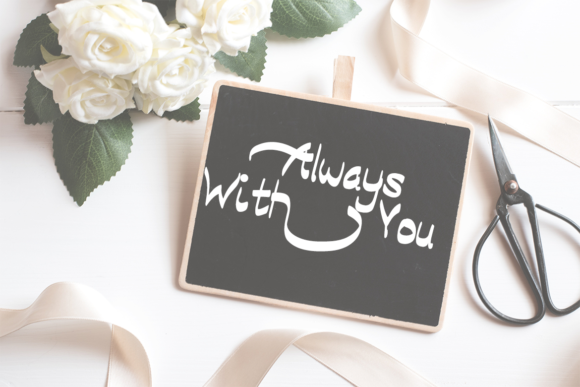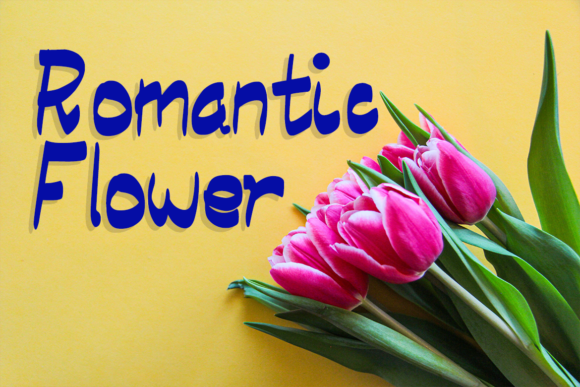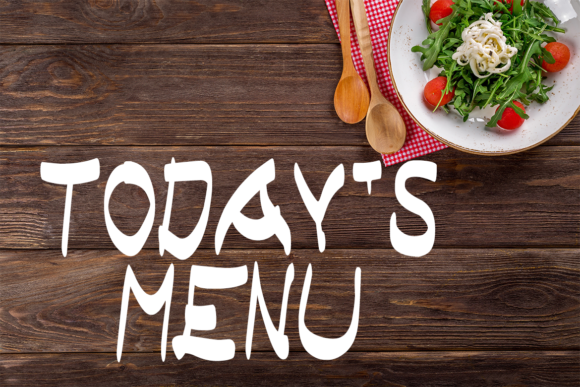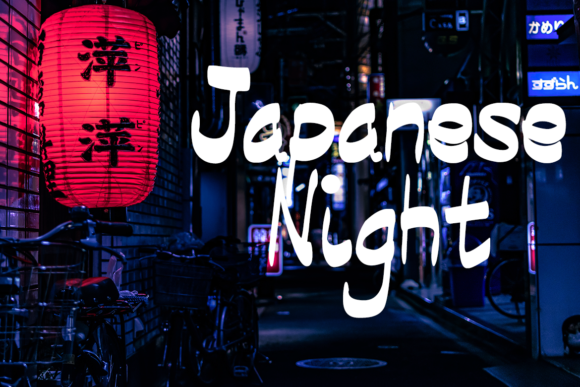
The Aisyah Font: A Bold Script with Endless Possibilities
I’ll never forget the moment I stumbled upon the Aisyah font. I was working on a project for a client who wanted a bold, yet down-to-earth script font that would make their brand stand out. As I scrolled through my font library, I found myself stuck. That’s when a fellow designer recommended Aisyah, and it quickly became my go-to font for that project. Its casual charm and readability won me over, and I’ve been hooked ever since.
An Honest Review of Aisyah Font
What I Love About Aisyah ✨
- ✅ Unique yet Readable: Aisyah strikes the perfect balance between being bold and easy to read. Its handcrafted feel makes it stand out from more generic script fonts.
- ✅ Versatile: Whether you’re working on a branding project, a craft blog, or a creative hobby, Aisyah adapts beautifully to different contexts.
- ✅ OpenType Features: Aisyah comes with a range of OpenType features, including stylistic alternates and glyphs, which allow for endless customization.
- ⚠️ Limited Use in Small Sizes: While Aisyah is generally readable, it can get a bit tricky to read in very small sizes (below 10pt). It’s best used in headlines, titles, or body text where a bit more size is possible.
- ⚠️ Kerning Issues on Some Platforms: Some users have reported kerning issues when using Aisyah on certain platforms, like Microsoft Word. However, these can often be adjusted manually.
The Backstory Behind Aisyah Font
Aisyah was designed with the intention of creating a bold yet down-to-earth script font. The designer aimed to craft a font that felt both personal and professional, suitable for a wide range of creative projects. While the exact details of the design process are scarce, it’s clear that Aisyah was made with love and a deep understanding of typography.
Q: What makes Aisyah font unique?
A: Aisyah’s uniqueness lies in its bold yet readable design, making it perfect for both headlines and body text. Its handcrafted feel sets it apart from more generic fonts.
Q: Does Aisyah support OpenType features?
A: Yes, Aisyah comes with a range of OpenType features, including stylistic alternates and glyphs, allowing for extensive customization.
Q: Is Aisyah difficult to read in small sizes?
A: While Aisyah is generally readable, it can be challenging to read in very small sizes (below 10pt). It’s best used in larger sizes for optimal impact.